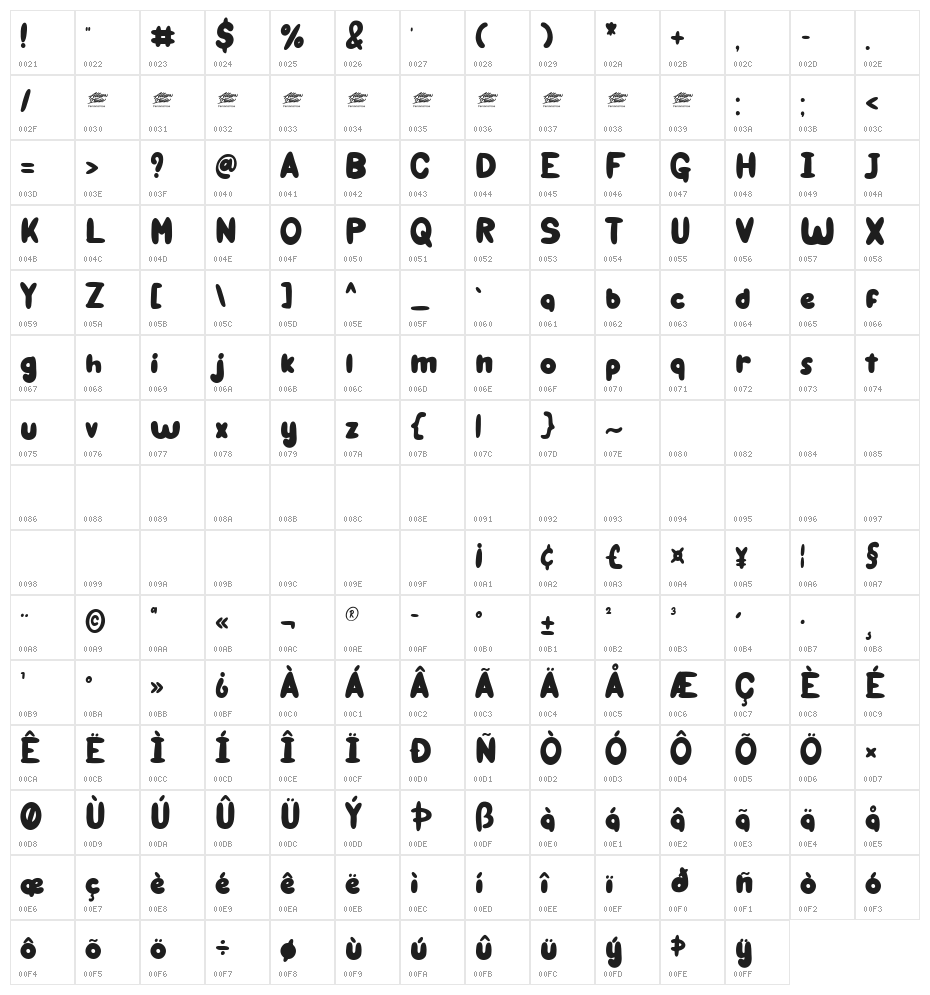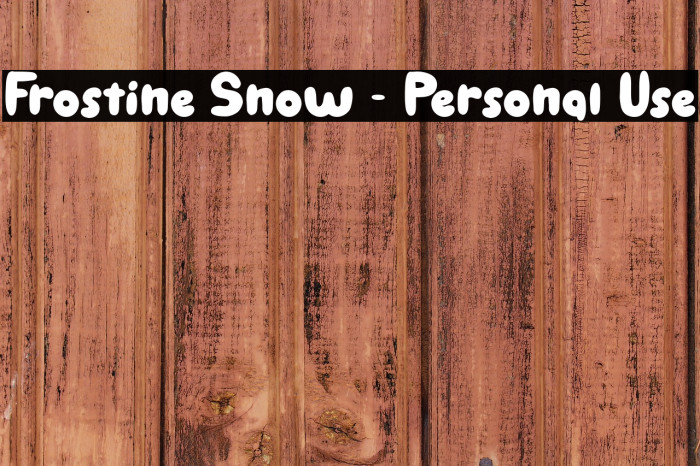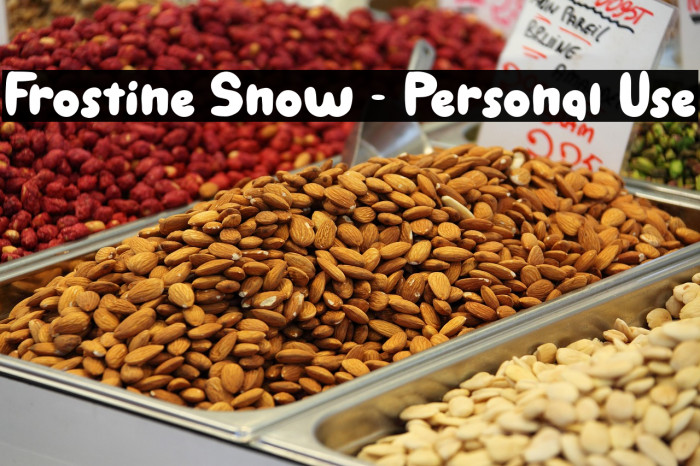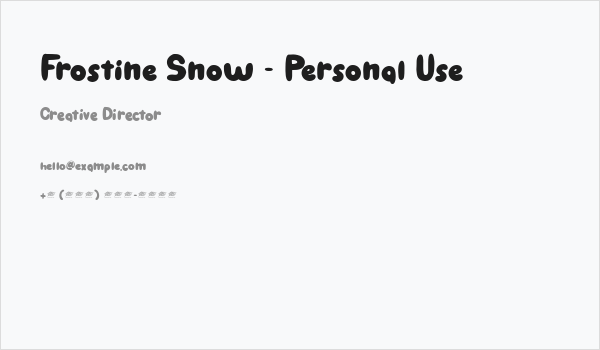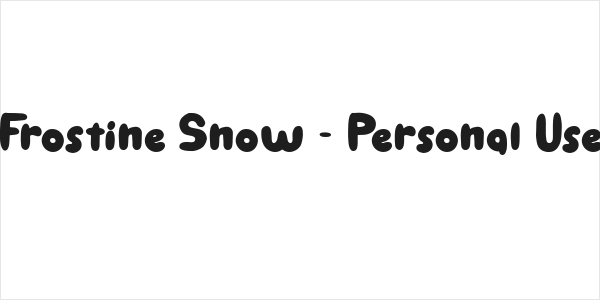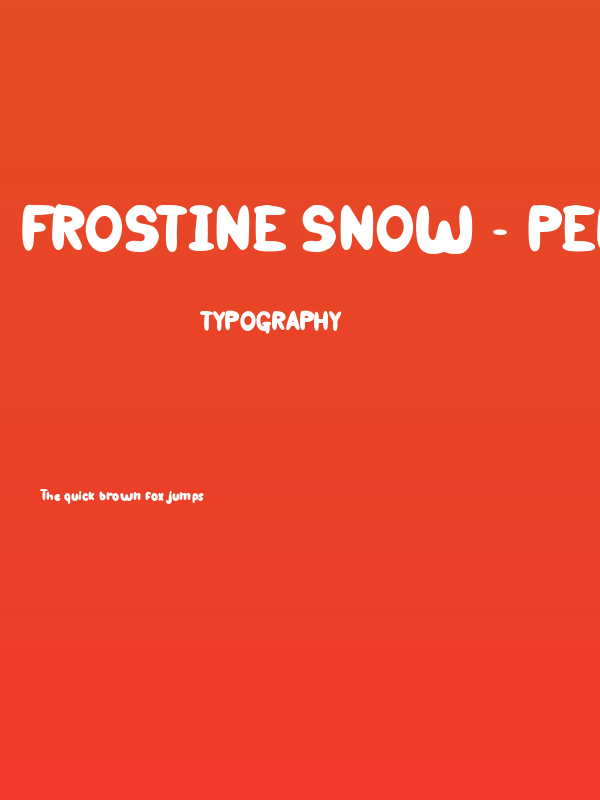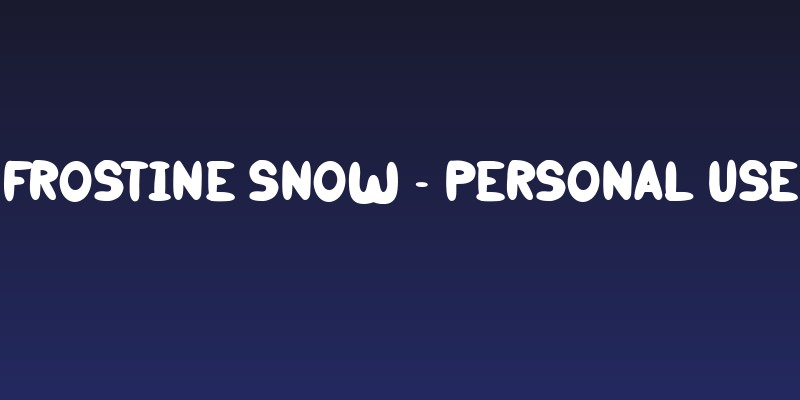
Frostine Snow - Personal Use Font
This playful and bold typeface features thick, rounded letters that convey a sense of fun and approachability. The characters are uniformly bold, with a consistent stroke weight that gives the font a cohesive look. The rounded edges and bubbly appearance make it ideal for projects that require a friendly and informal tone. The uppercase and lowercase letters maintain a similar width, contributing to a balanced and harmonious design. The special characters are equally bold and rounded, ensuring they fit seamlessly with the alphabetic characters.
| Proposed Projects | Ideal for children's books, playful branding, party invitations, and casual social media graphics. |